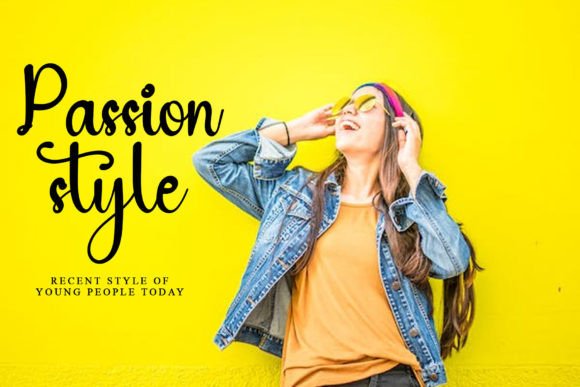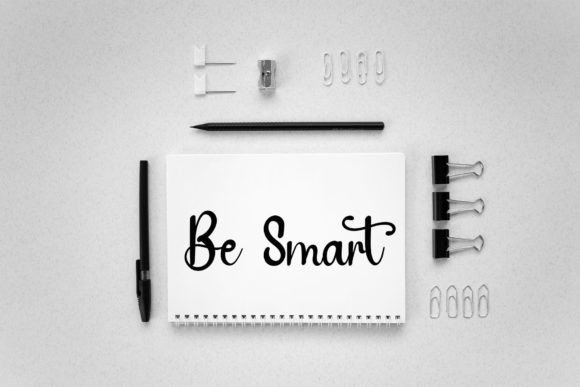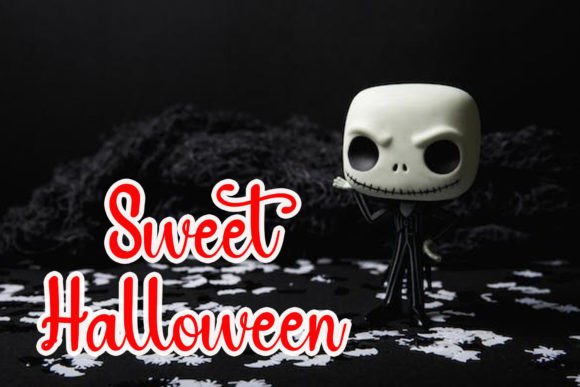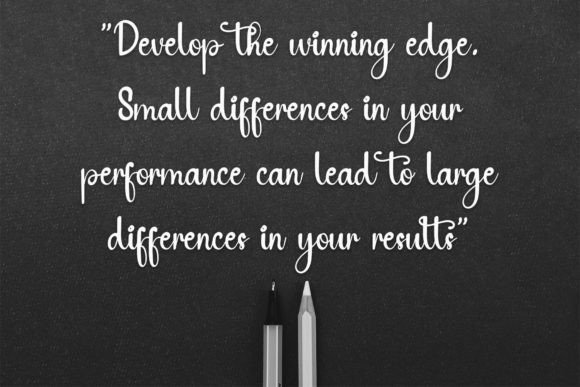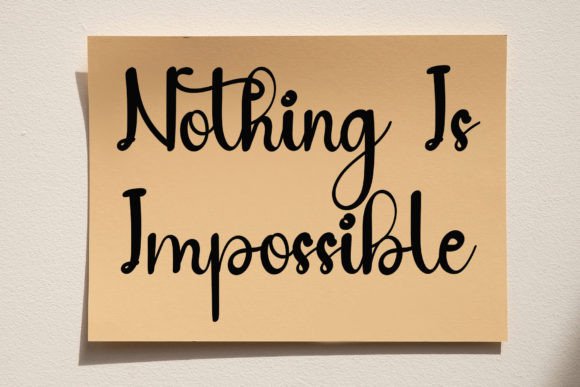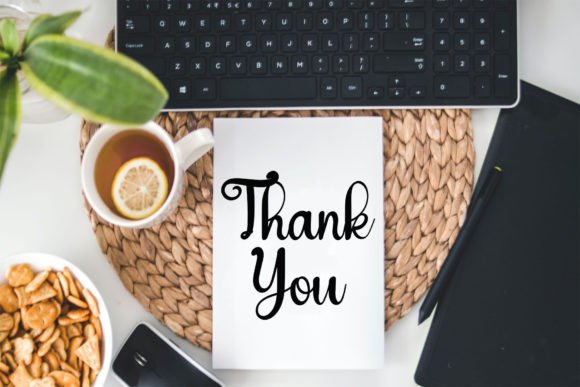
Unleash the Magic of Better Sunset Font
There’s something special about witnessing a breathtaking sunset – the vibrant colors, the gentle fading of light, the feeling of serenity that washes over you. For creatives, it’s not just a moment, but a source of inspiration. And what better way to capture that essence than with a beautiful, elegant font?
Introducing Better Sunset Font, a stunning handwritten font that’s perfect for adding a touch of warmth and sophistication to your designs. Whether you’re working on a branding project, a wedding invitation, or a social media graphic, this font is sure to make your creations stand out. With its unique, timeless style, Better Sunset Font is a valuable addition to any designer’s toolkit, helping you to create truly spectacular designs that leave a lasting impression.
Better Sunset Font Key Features
- Font Family: Better Sunset, a unique and custom-designed font family.
- Unique Characteristics: Features a warm and vibrant aesthetic, with subtle gradient effects that evoke the feeling of a sunset.
Review of “Better Sunset Font”
I recently had the chance to work with “Better Sunset Font” and here’s my honest take on it.
- The font’s unique blend of warm and cool tones is quite striking. It’s perfect for designs that require a sense of nostalgia or a hint of adventure.
- The font’s readability is surprisingly good, considering its complex design. It’s easy to use for body text or headlines.
- The font’s versatility shines through in its various weight options, making it suitable for a wide range of design applications.
- The font’s high level of detail can make it difficult to read at small sizes. Be cautious when using it for very small text.
- The font’s unique style may not appeal to everyone. Some designers may find it too distracting or overwhelming.
Overall, I think “Better Sunset Font” is a great addition to any designer’s toolkit. While it has some limitations, its unique style and versatility make it a valuable asset for the right projects. Just be mindful of its potential drawbacks and use it wisely.
The “Better Sunset Font” is perfect for:
Creating eye-catching social media graphics and advertisements.
Designing inspirational quotes and posters.
Adding a touch of warmth and personality to presentations and reports.